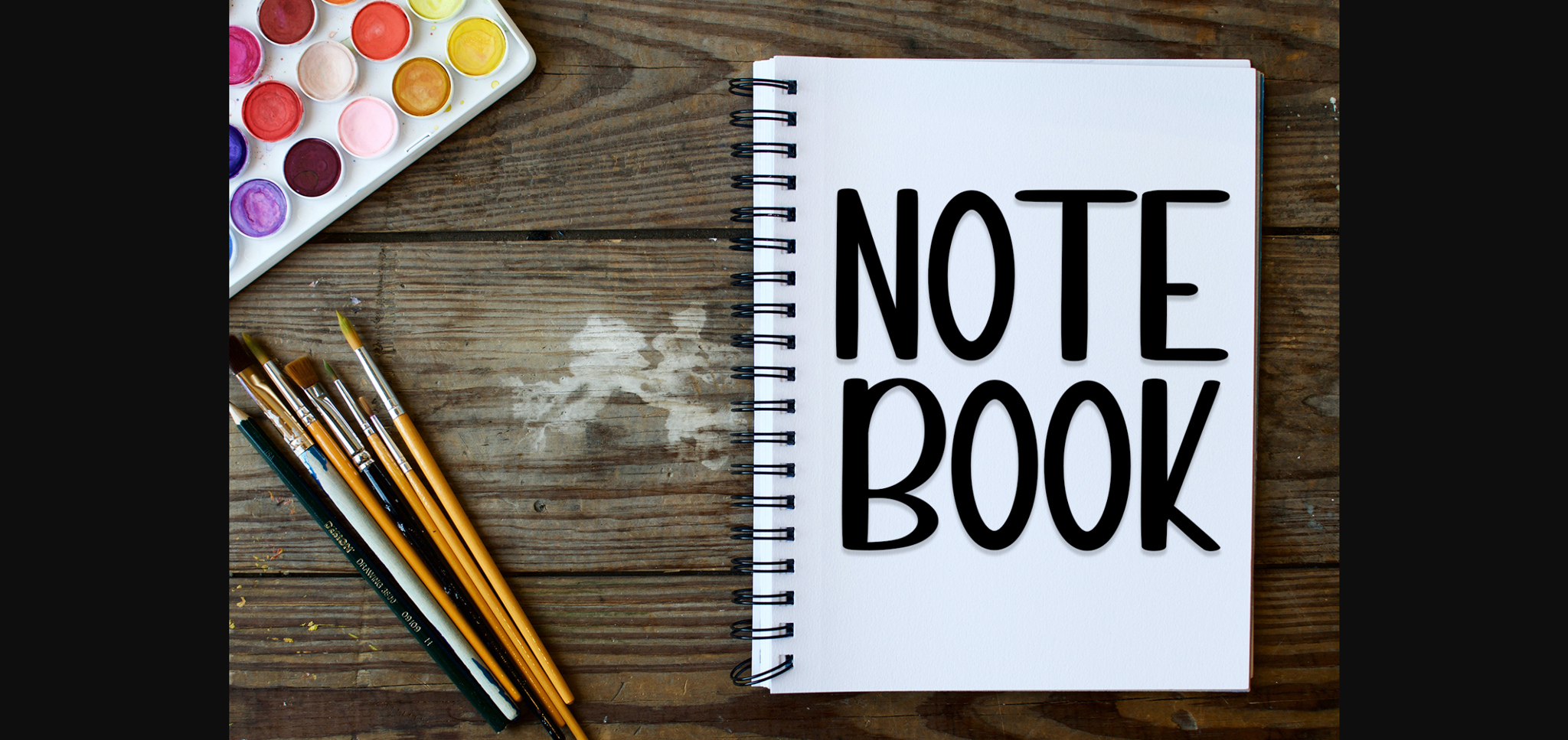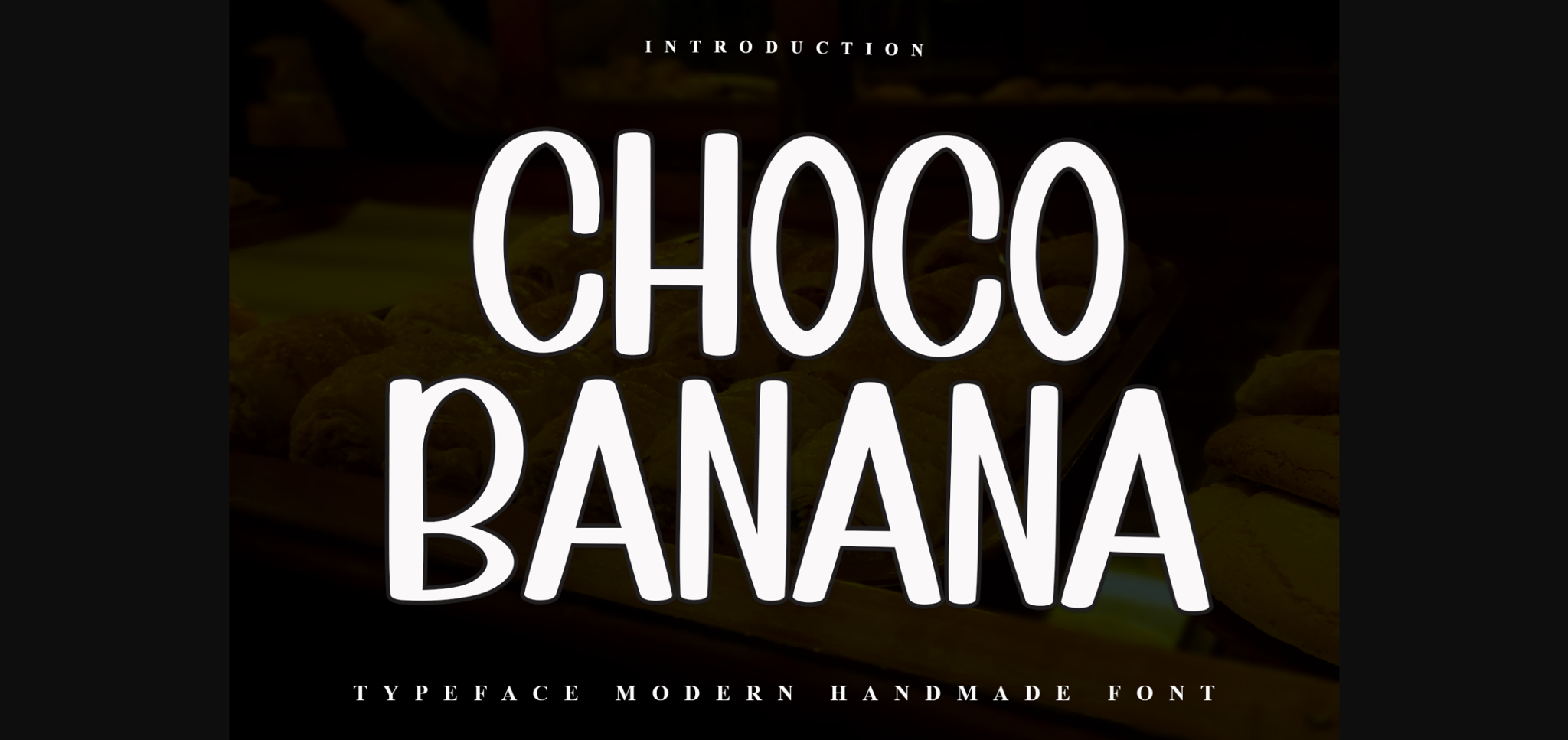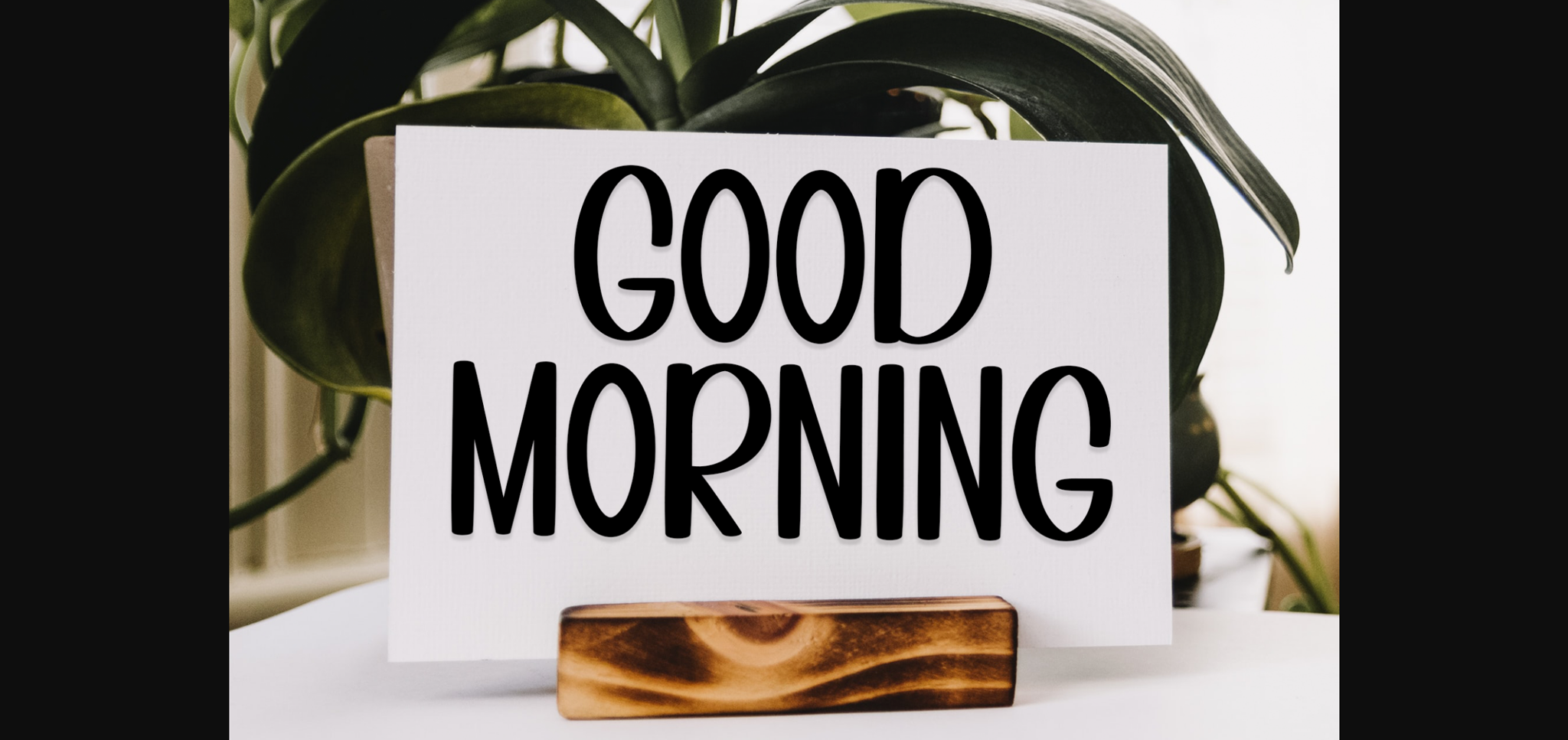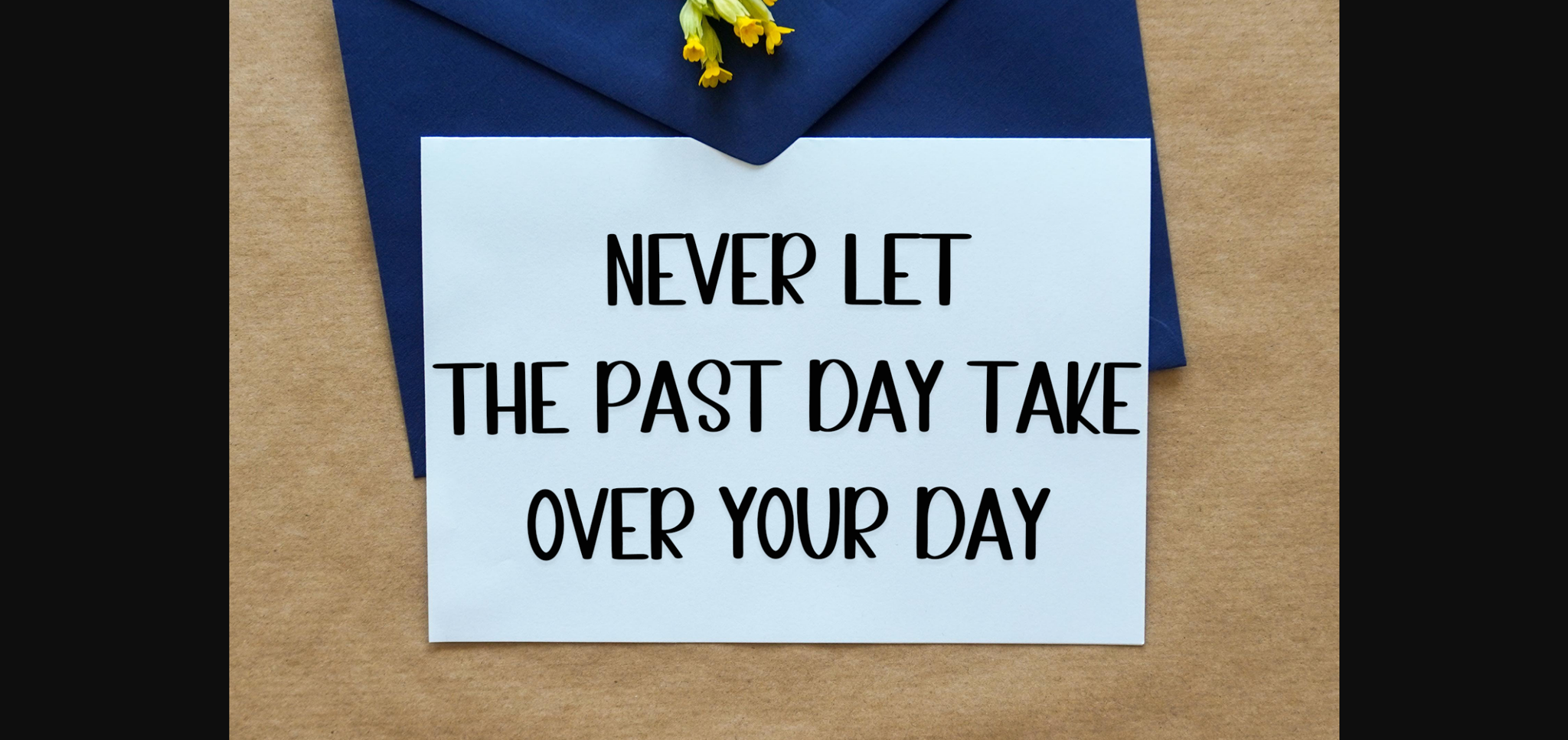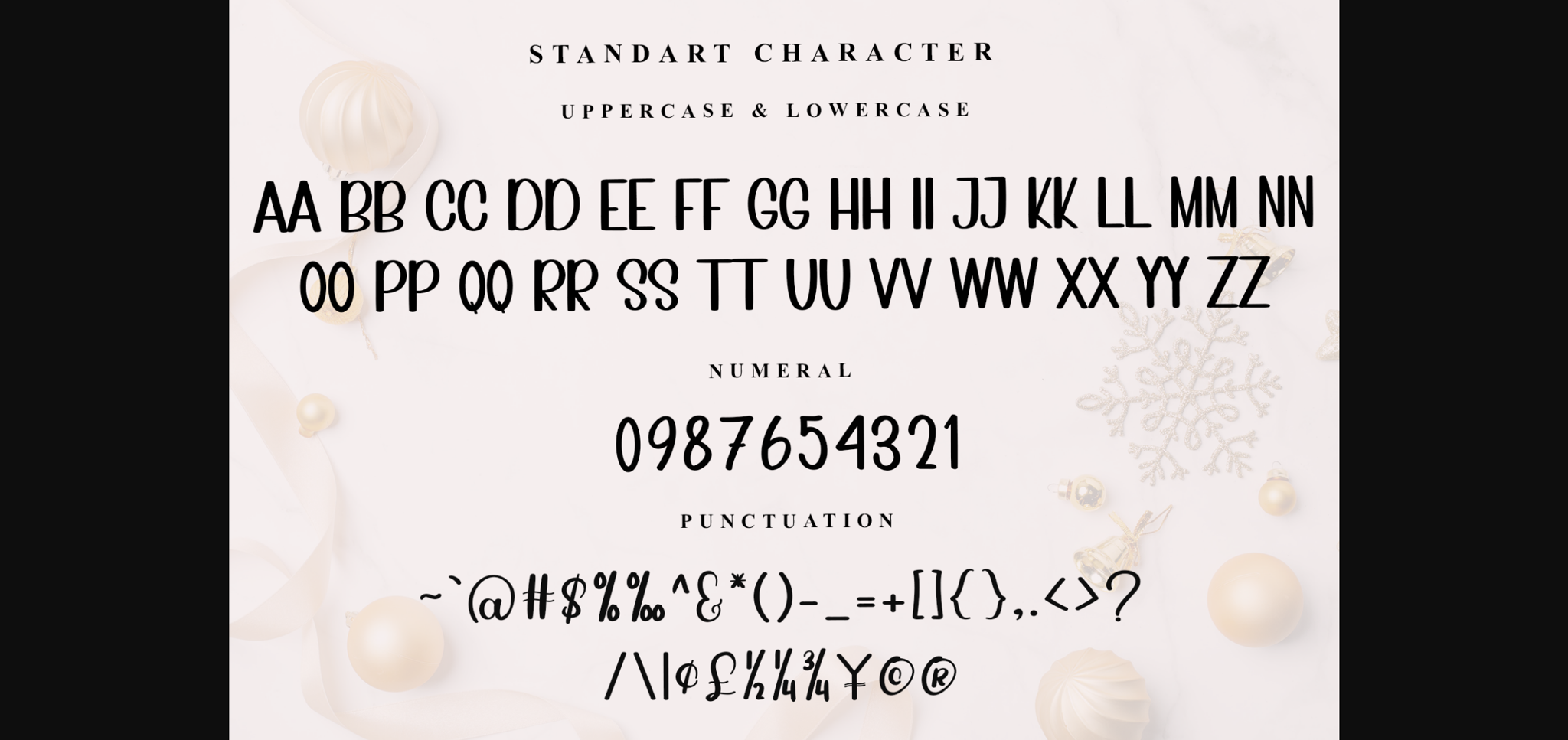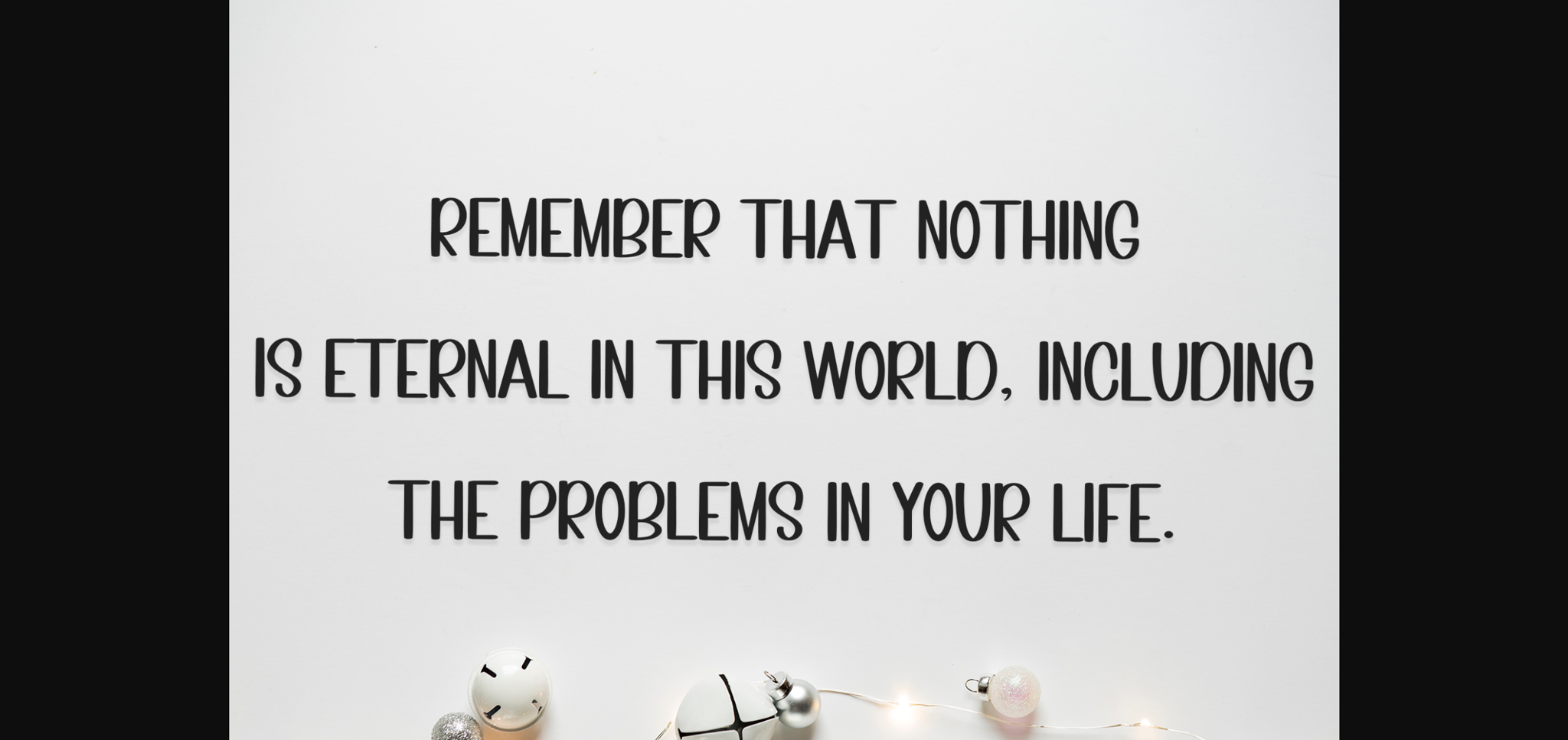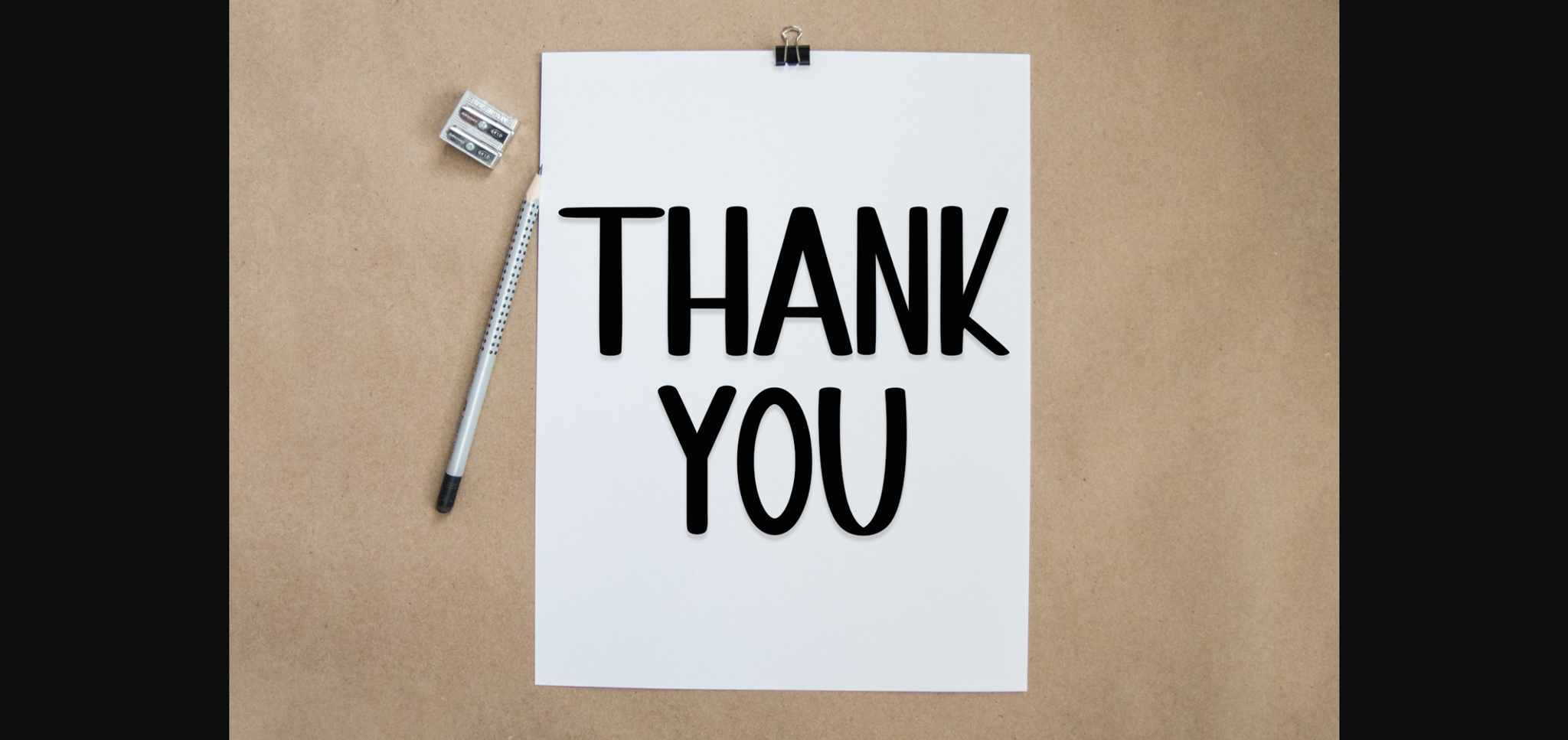
HomeSans Serif FontsChoco Banana Font Sans Serif Fonts Choco Banana Font FacebookXPinterestWhatsApp 1 of 9 ... Choco Banana Font Poster 2... Choco Banana Font Poster 3... Choco Banana Font Poster 4... Choco Banana Font Poster 5... Choco Banana Font Poster 6... Choco Banana Font Poster 7... Choco Banana Font Poster 8... Choco Banana Font Poster 9... About Choco Banana Font Choco Banana is a neat and casual sans-serif font. Whatever the topic, this font is perfect for your creative craft needs! DOWNLOAD NOW People also explored Routter Stuck Font Rolasan Signature Font Monalisa Font Cherith Font Balistica Font Wenzoule Font Becks Delights Font Bleno College Font Hazel Font 267 0 TagsChoco Banana Font Previous articleLove Sunshine FontNext articleGood Night Font LEAVE A REPLY Cancel reply Comment: Please enter your comment! Name:* Please enter your name here Email:* You have entered an incorrect email address! Please enter your email address here Website: Save my name, email, and website in this browser for the next time I comment. Personal Use Free Retro Poster Personal Use Free Read more about this font Heartburn Personal Use Free Read more about this font Rafika Personal Use Free Read more about this font Mueband Personal Use Free Read more about this font BLOG To increase your work productivity, choose the most readable fonts. In today's fast-paced work environment, where digital communication and information consumption are integral to our daily routines, the choice of fonts can significantly impact... Free Fonts Risk: Why Free Fonts Can Be Dangerous for Designers Using Fonts in Digital Marketing: Tips to Strengthen Your Brand Identity Free vs Paid Fonts: Why Investing in Premium Fonts Is Worth It